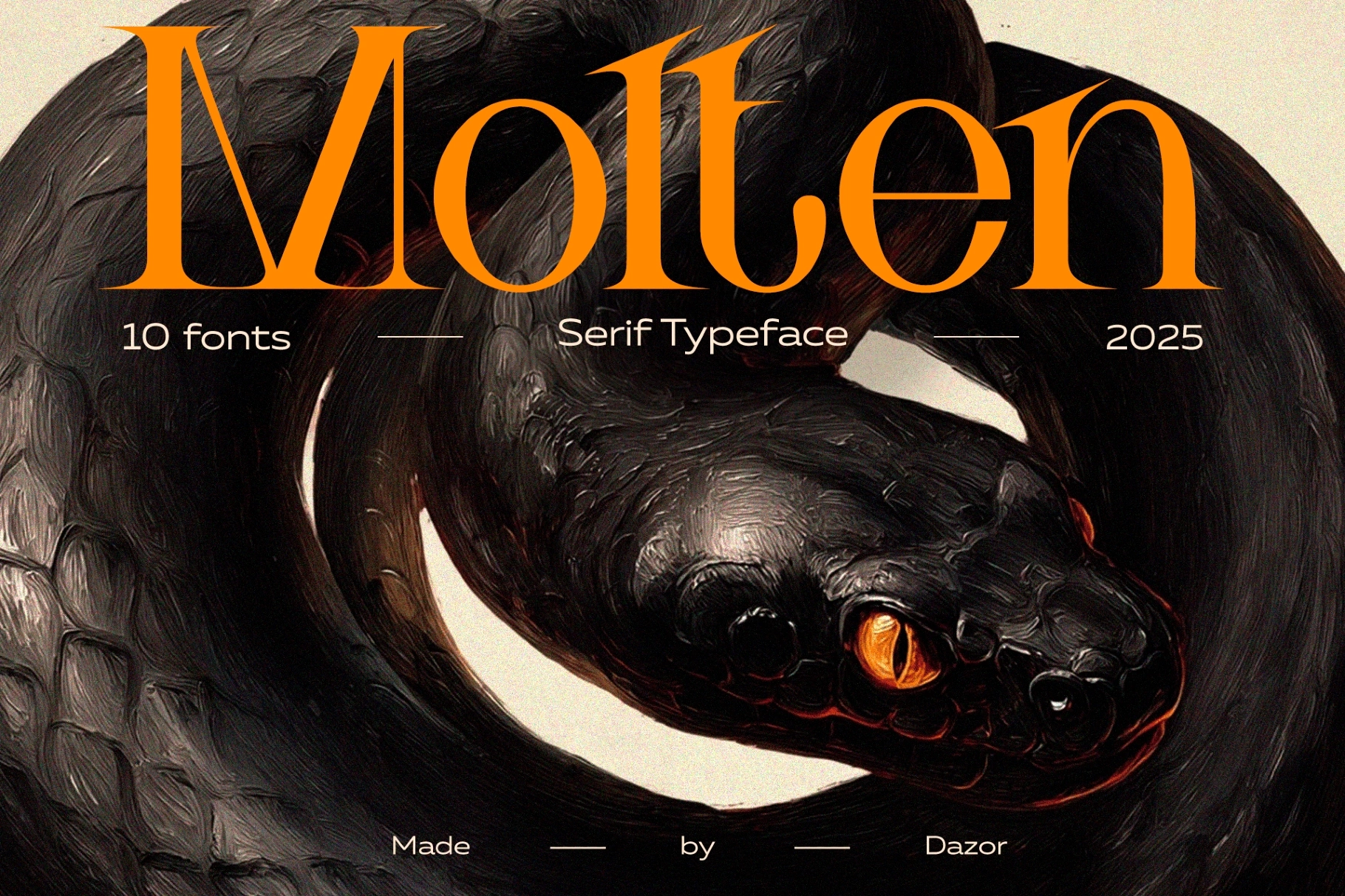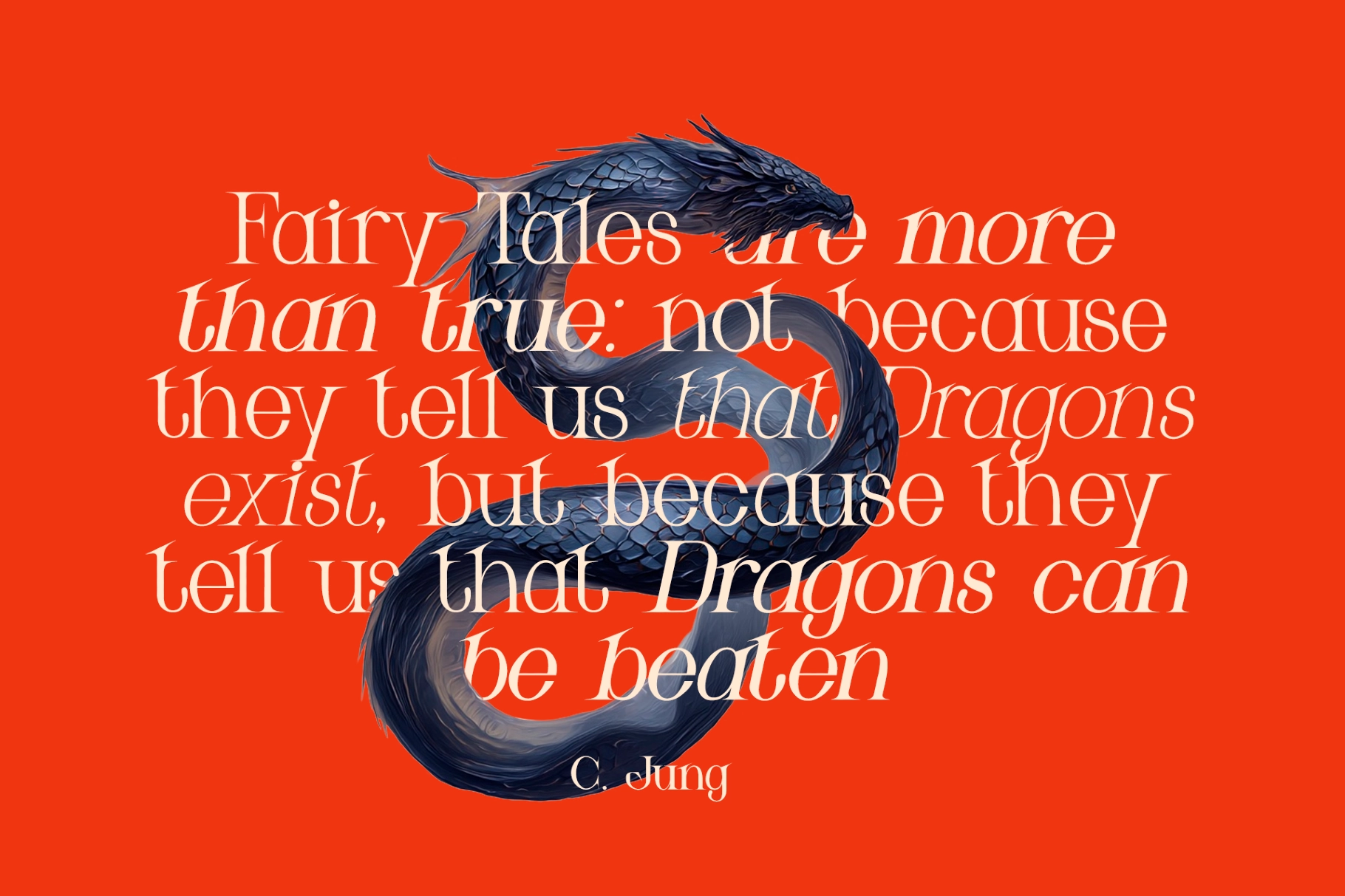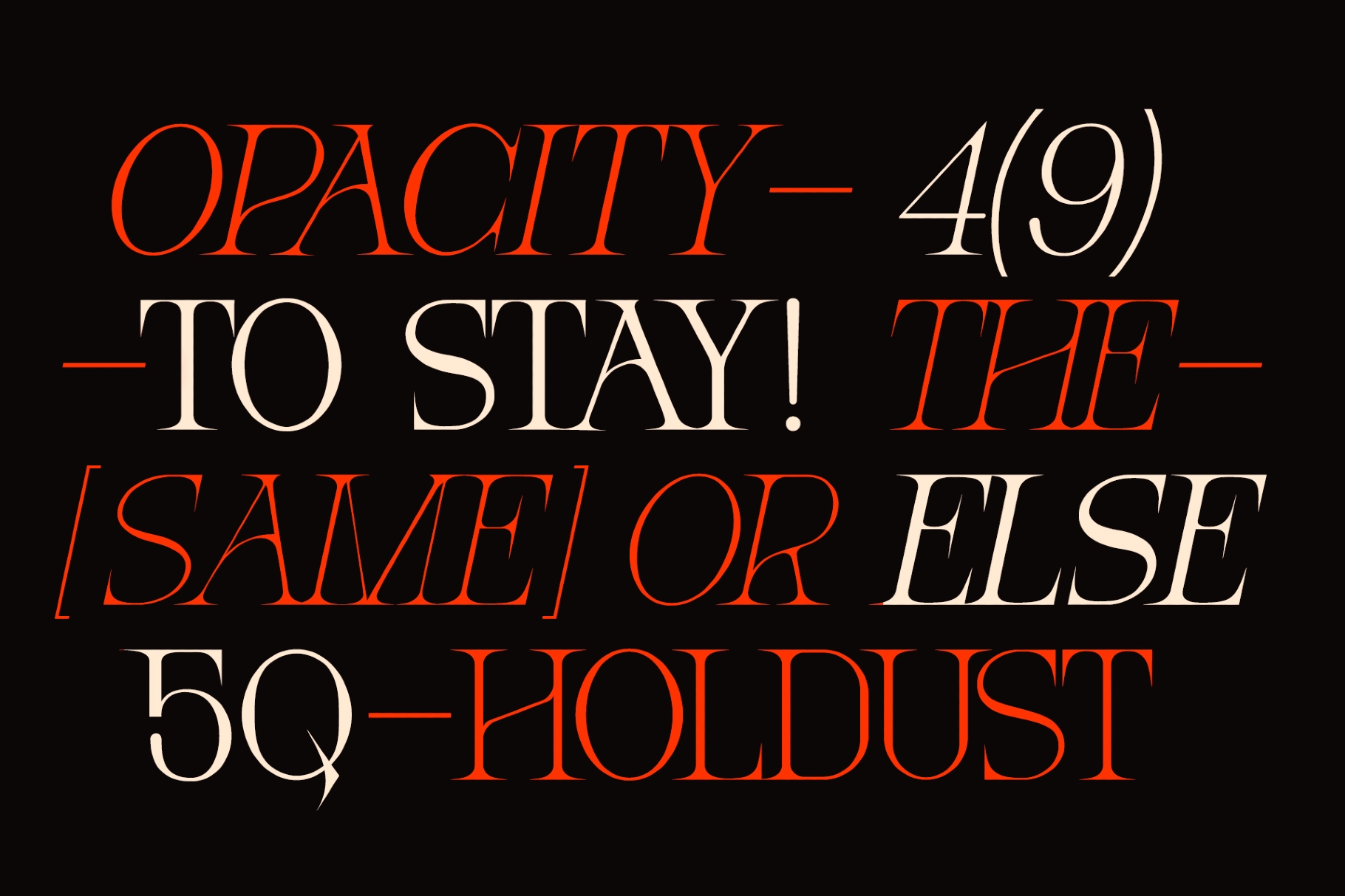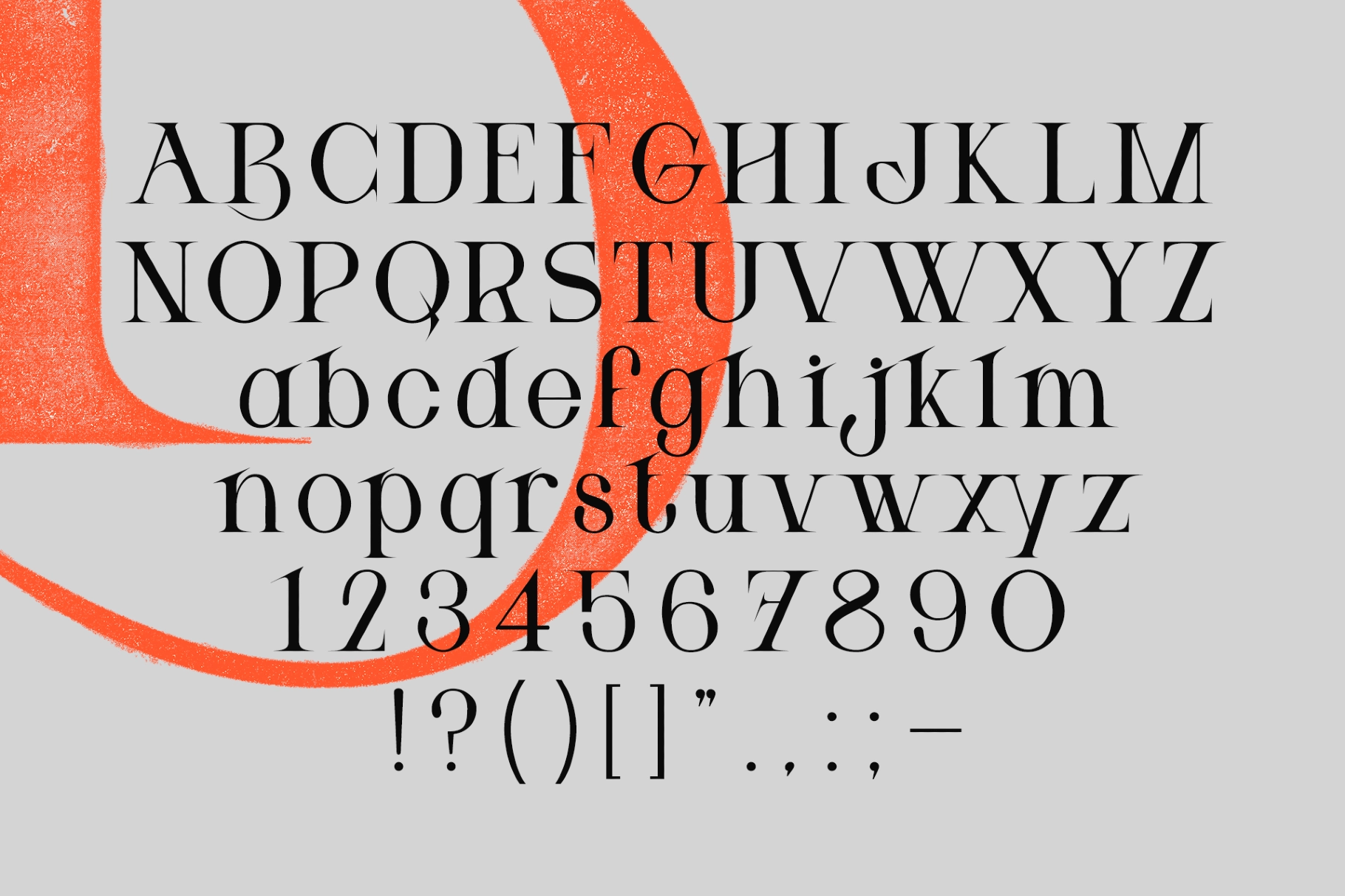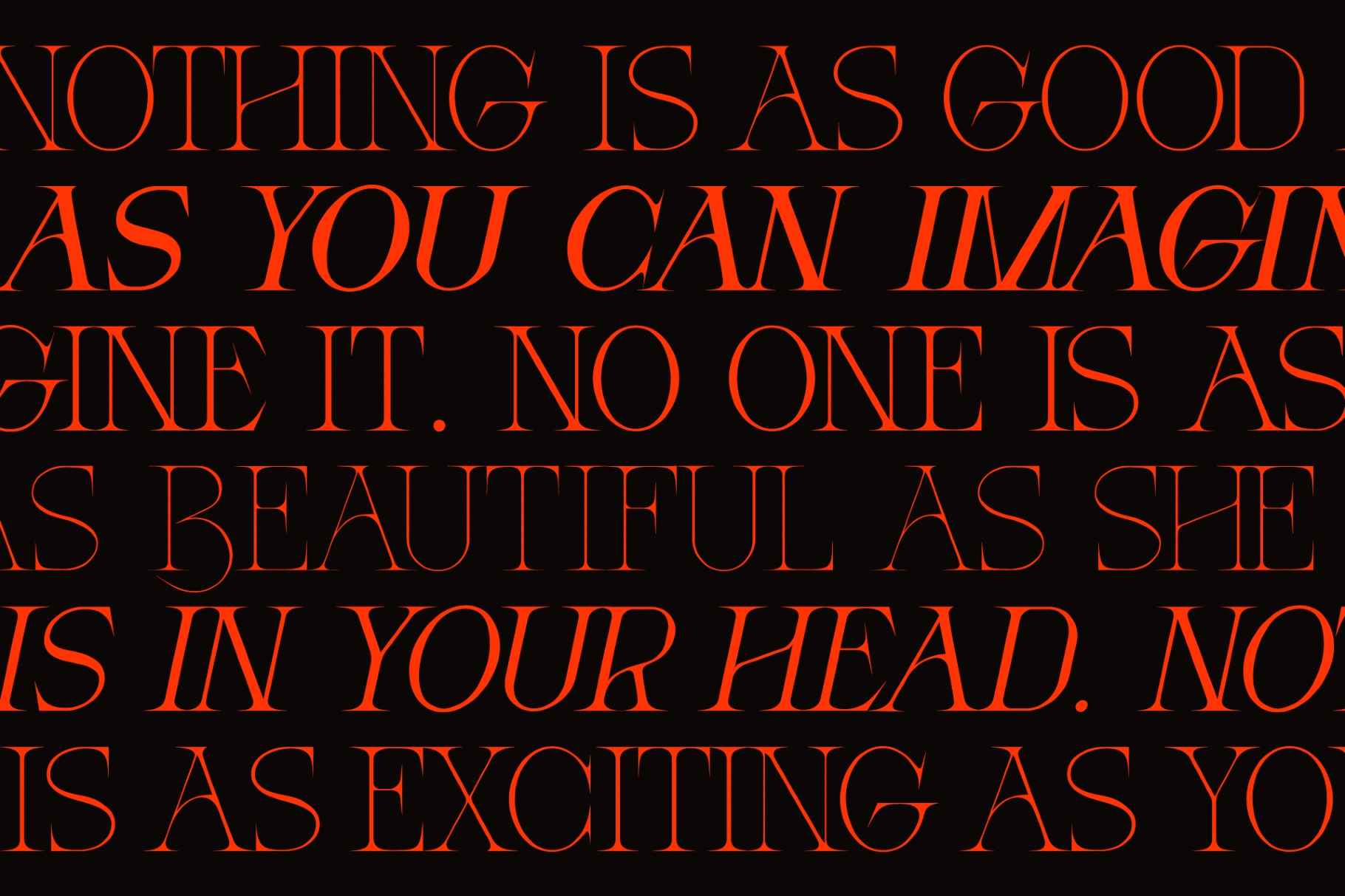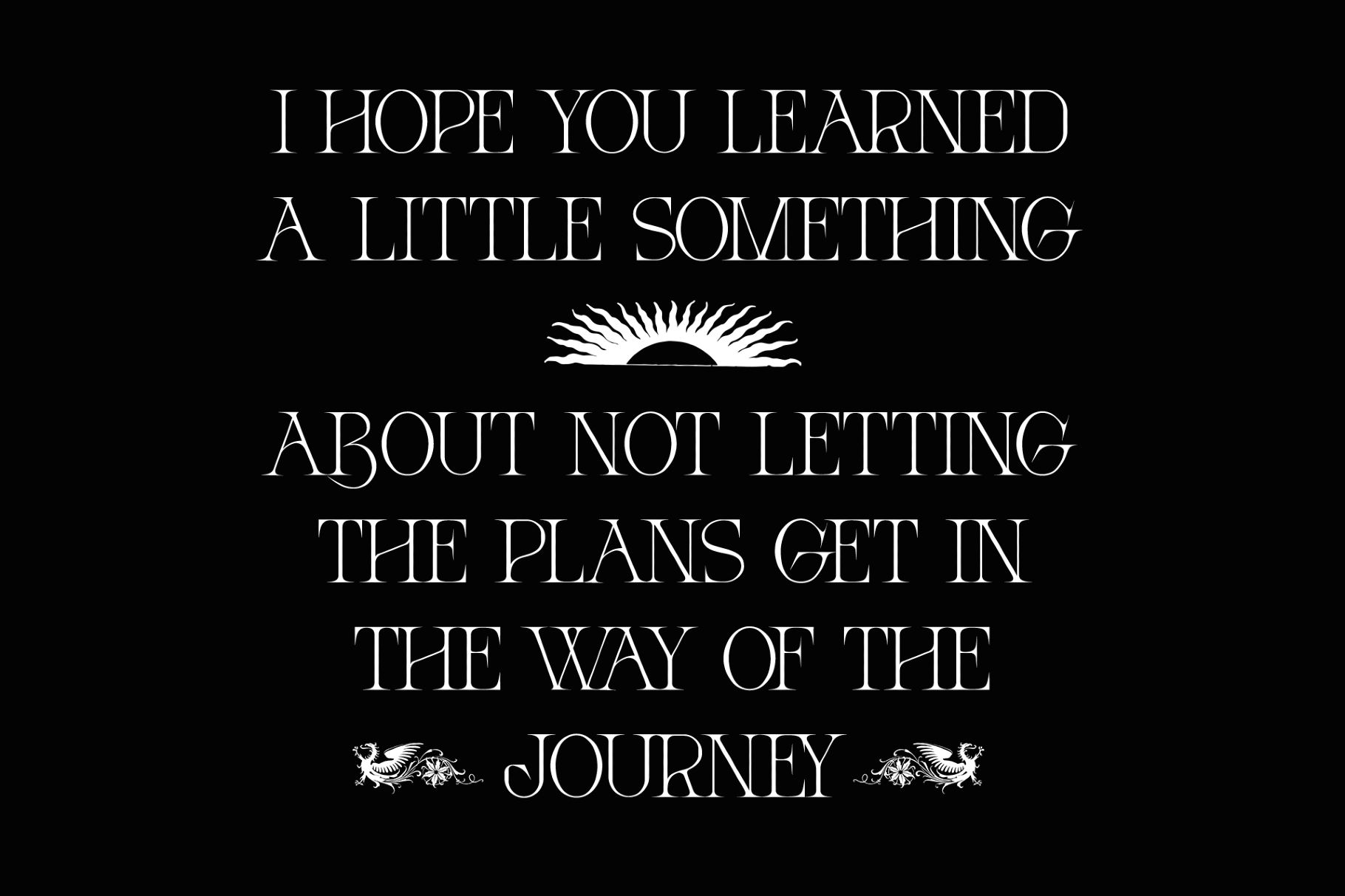
Molten - Serif Typeface
Molten is a contemporary antiqua featuring elegant curves and razor-sharp edges, shaped by influences from fantasy worlds and folklore. Its contrasting strokes create a balance between softness and intensity. Universal and versatile, it performs perfectly in a wide range of projects - from logos and headlines to even longer texts.
The family includes 10 weights, from an airy Thin to an expressive Bold, each accompanied by refined slanted styles.